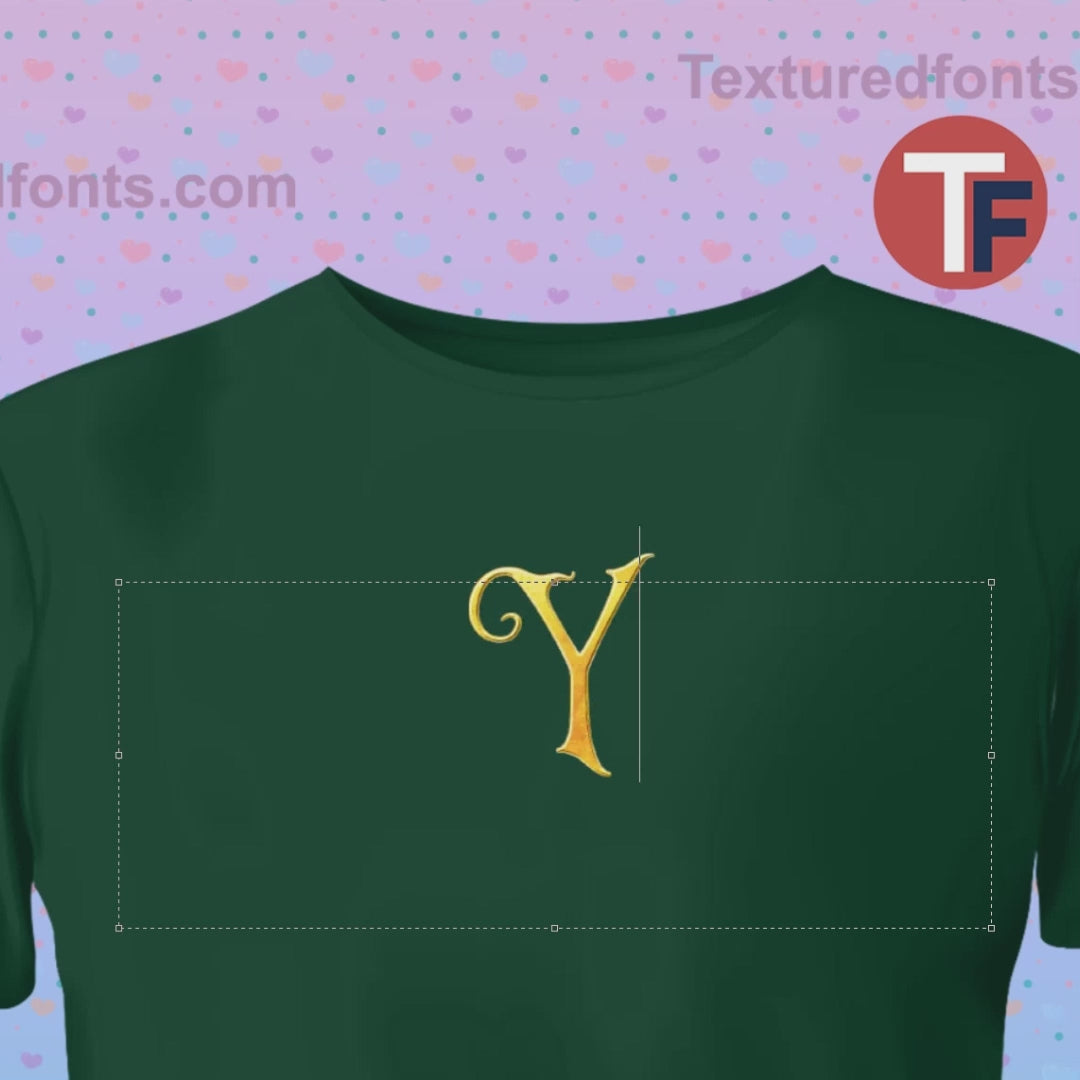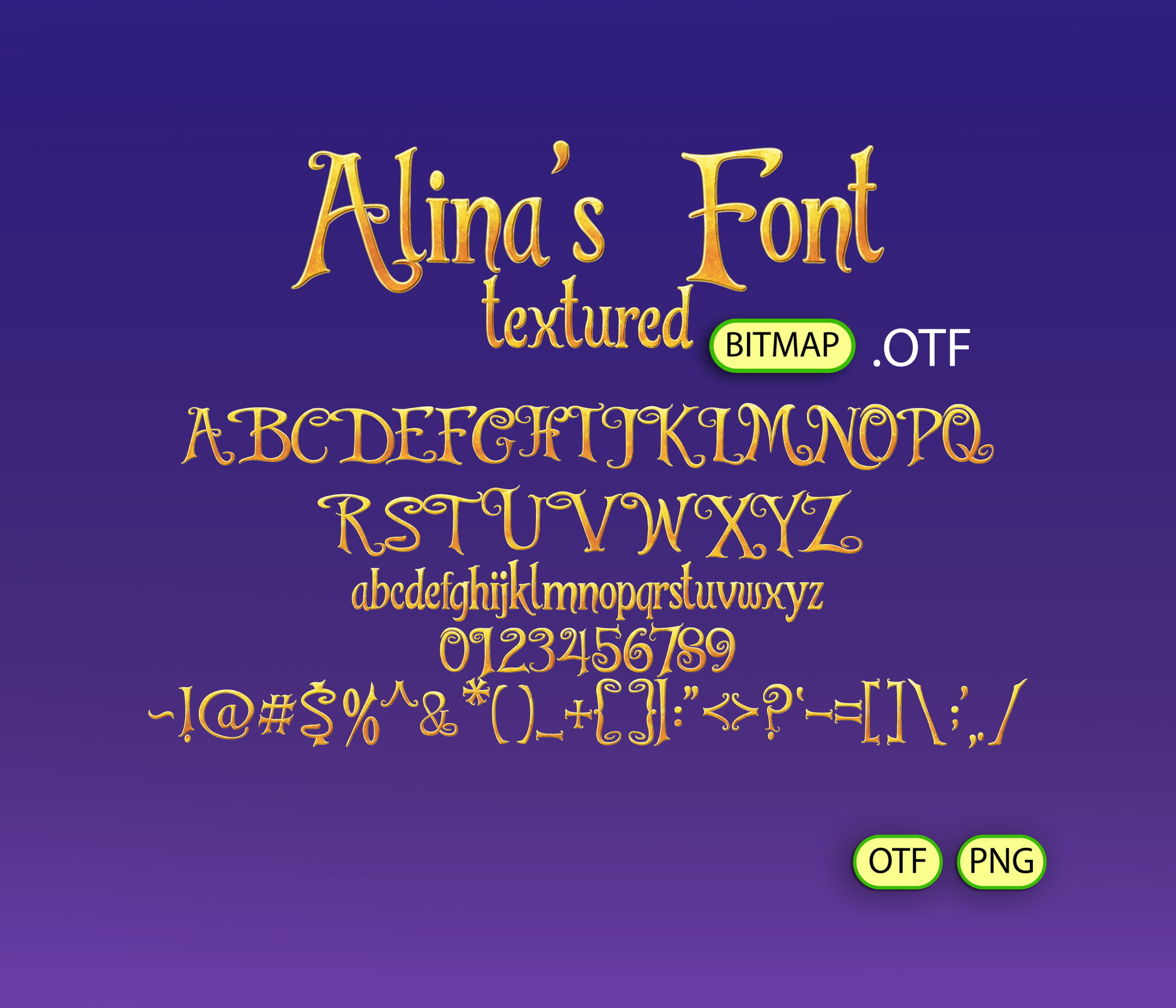
Fairy Tale Font Textured
Sprinkle Magic with the Fairy Tale Font
Embrace the enchantment and whimsy of a magical world with our Fairy Tale-inspired font. Perfect for fans, event planners, and designers looking to capture the magical and playful spirit of beloved fairy tales, this font brings the essence of fairy dust and charm to your projects. Whether you're creating event invitations, designing themed merchandise, or crafting digital content, our Fairy Tale font ensures your creations sparkle with fairy dust and charm.
Our Fairy Tale-inspired font features elegant, flowing lines and whimsical details that reflect the delicate and magical nature of fairy tales. This versatile font is ideal for a variety of applications:
- Event Invitations: Perfect for creating enchanting invites for fairy-themed parties, weddings, or special celebrations.
- Merchandise Design: Ideal for designing t-shirts, posters, and accessories that capture the essence of fairy tales.
- Digital Media: Enhance websites, blogs, and social media content with whimsical headers and graphics.
- Educational Materials: Use in presentations, worksheets, and educational content focused on storytelling or fantasy themes.
- Personal Projects: Add a touch of magic to scrapbooking, DIY crafts, or home decor inspired by the adventures of fairy tales.
To ensure maximum usability and flexibility, our Fairy Tale-inspired font includes both textured and non-textured variants. The non-textured version is particularly beneficial, ensuring compatibility with all types of software, including Canva. This feature allows users of all skill levels to seamlessly incorporate the font into their designs, enhancing accessibility and ease of use across various digital and print platforms.
Our Fairy Tale font not only pays tribute to beloved fairy tales but also empowers you to infuse your designs with magic and wonder. Whether you’re crafting promotional materials, designing unique merchandise, or adding a touch of fairy charm to personal projects, this font allows you to communicate with the enchanting spirit of fairy tales. Ready to let your creativity take flight? This font is your key to unlocking a world of whimsy and imagination.